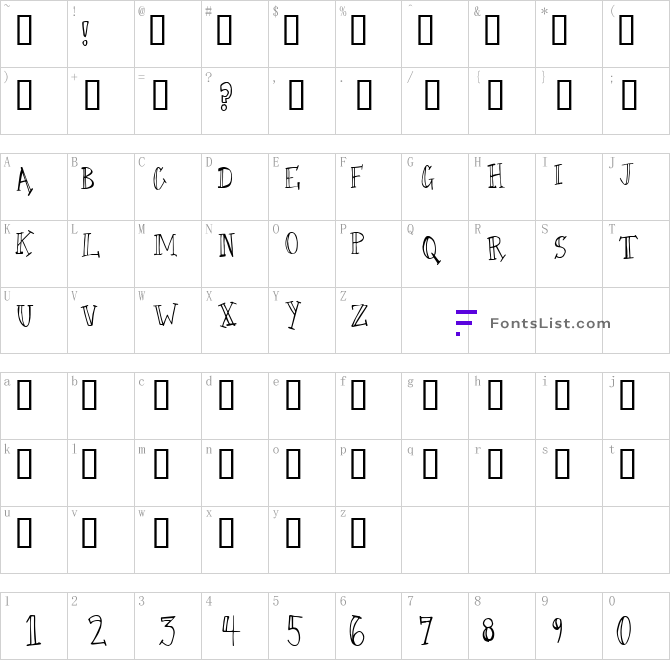
- Font Name:Camel Walk
Camel-Walk.ttf is a very beautiful artistic font, Camel-Walk.ttf is widely used in the design and printing of various books and pictures,Camel-Walk.ttf has a strong visual impact,Camel-Walk.ttf is a commonly used font in newspapers, magazines and books, and is used in posters, e-commerce Poster design, store design, logo design, font design and other fields.Camel-Walk.